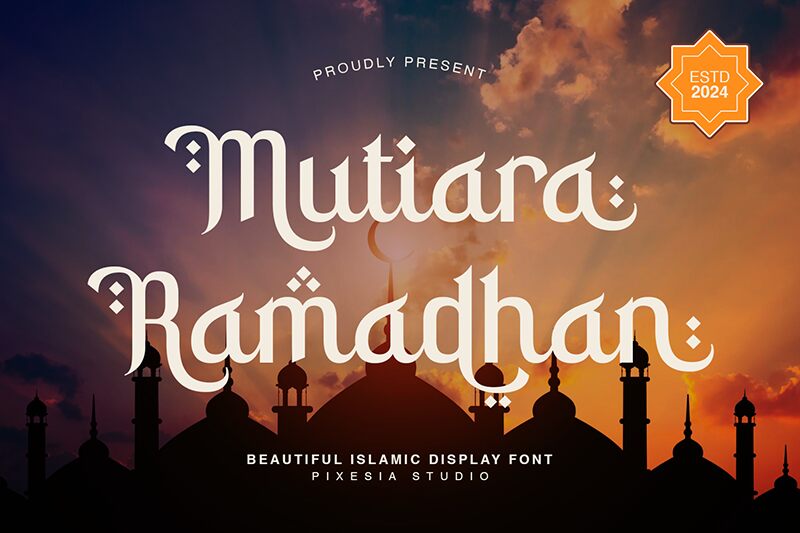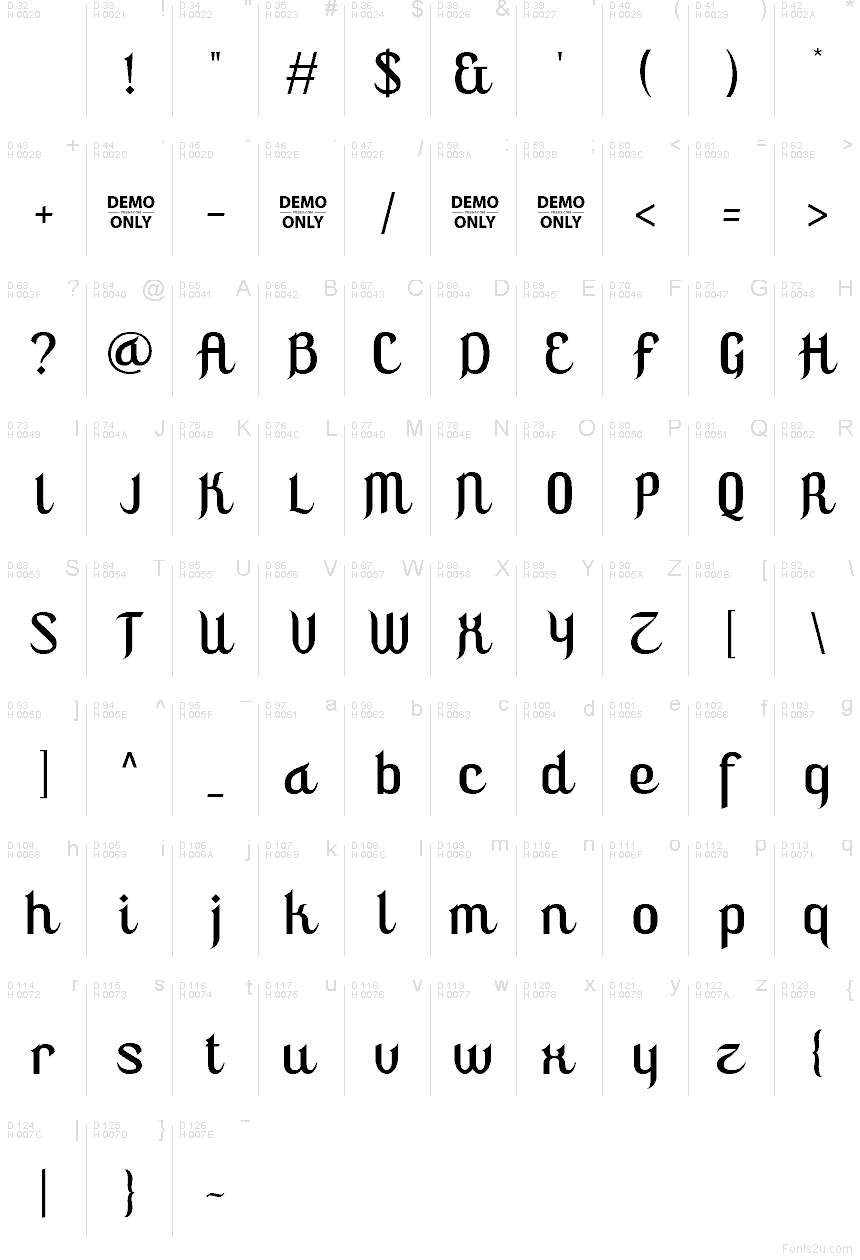
Mutiara Ramadhan Demo Regular
Mutiara Ramadhan font by Pixesia Studio is a free decorative faux Arabic typeface that captures the soft rhythm of handwritten lettering without losing clarity. Its flowing strokes, gentle hooks, and slightly condensed shapes echo traditional calligraphy while staying clean enough for modern layouts. The letters feel inky and fluid, creating an immediate sense of warmth, festivity, and cultural richness for Ramadhan and beyond.
Using Mutiara Ramadhan, your Ramadhan banners, Eid greeting cards, social media posts, event posters, restaurant menus, packaging, and spiritual program covers instantly gain a cohesive, atmospheric look. The smooth curves read comfortably at medium to large sizes, making this free font shine in headings and short phrases. Pair it with a simple geometric sans serif for body text to keep the focus on its ornate, celebratory character.